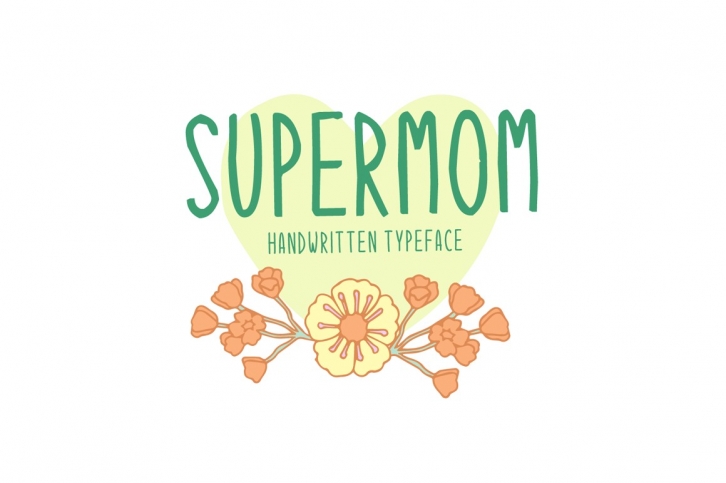
Supermom is a great font that was designed by Seemly Fonts. Imagine the amount of combinations you can create using this font! The archive is 16.39 MB and it was released on April 2, 2020. Supermom looks beautiful on wedding invitations, greeting cards, logos, posters, labels, t-shirt designs, logos, business cards and is perfect for use in ink or watercolor works, fashion, magazines, packaging and food menus, children's books and more!